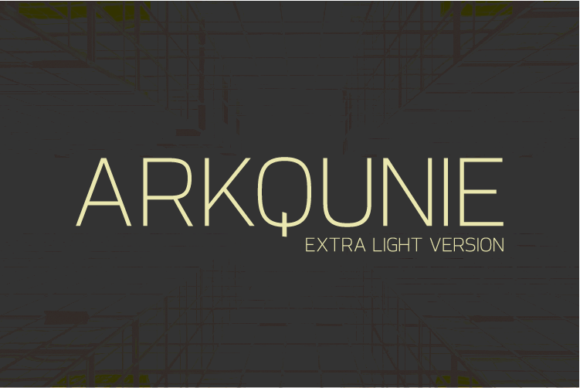
The Ultimate Design Hack: Unlocking the Power of Arkqunie Extra Light Font
I’ll never forget the time I was working on a project for a client who needed a font that was both modern and elegant. I had spent hours scouring the internet for the perfect typeface, but nothing seemed quite right. That was until I stumbled upon Arkqunie Extra Light Font. With its casual, geometric sans serif design and maximum flexibility, it was like a breath of fresh air. In this article, I’ll share my experience with Arkqunie, its features, and how to get the most out of this amazing font.
An Honest Review: What I Love and What I Don’t
- ✅ **Clean and modern design**: Arkqunie’s geometric sans serif design makes it perfect for a wide range of projects, from headlines to body text.
- ✅ **Highly versatile**: With its special features in every corner of each letter, Arkqunie can be used for everything from postcards to logos, letterheads, magazines, and posters.
- ✅ **Easy to read**: The font’s clean lines and simple design make it easy to read, even at small sizes.
- ⚠️ **Limited contrast**: While Arkqunie’s clean design is a strength, it can also make it difficult to create visual hierarchy in some designs.
- ⚠️ **May not be suitable for body text**: While Arkqunie is easy to read, its light weight may not be suitable for long blocks of body text.
- Experiment with OpenType features like glyphs and stylistic alternates to add visual interest to your design.
- Use the OpenType panel to access glyphs, stylistic alternates, and other advanced typography features.
The Story Behind Arkqunie: Designer Inspiration
Arkqunie was designed with the goal of creating a modern, geometric sans serif font that’s both clean and elegant. The designer wanted to create a font that would be perfect for a wide range of projects, from headlines to body text. With its special features in every corner of each letter, Arkqunie is a true workhorse font that’s sure to become a favorite in any designer’s toolkit.
Q: What is the best way to use Arkqunie in my design?
A: Arkqunie is a versatile font that can be used for a wide range of projects, from headlines to body text. Experiment with different font sizes, styles, and OpenType features to find the perfect look for your design.
Q: Is Arkqunie suitable for body text?
A: While Arkqunie is easy to read, its light weight may not be suitable for long blocks of body text. Consider using a font with more contrast or a larger font size for body text.